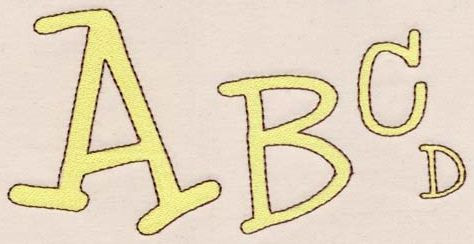
212 Scooter FillOutline Font
Scooter FillOutline Font comes in 1", 2", 3" and 4" heights based on the capital "A" with all others characters sized proportionaly. Finished in Fill Stitch with Triple Stitch outline in second color. uppercase, lowercase, numbers and four punctuations included n each size. Some letters in the 3" set and most in the 4" set exceed the standard 3.96" x 3.96" PES hoop limitations. Coordinates with sets 211 Scooter Satin/SatinFill Font and 213 Scooter Applique each sold separately.